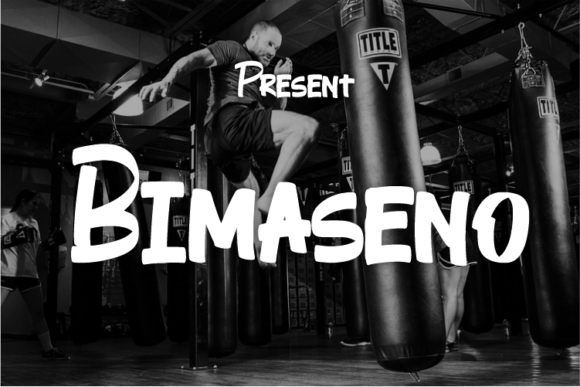
Download Bimaseno Font for free! Created by Eric Kusuma and published by Logan Copeland, this script font family is perfect for adding a unique touch to your designs.